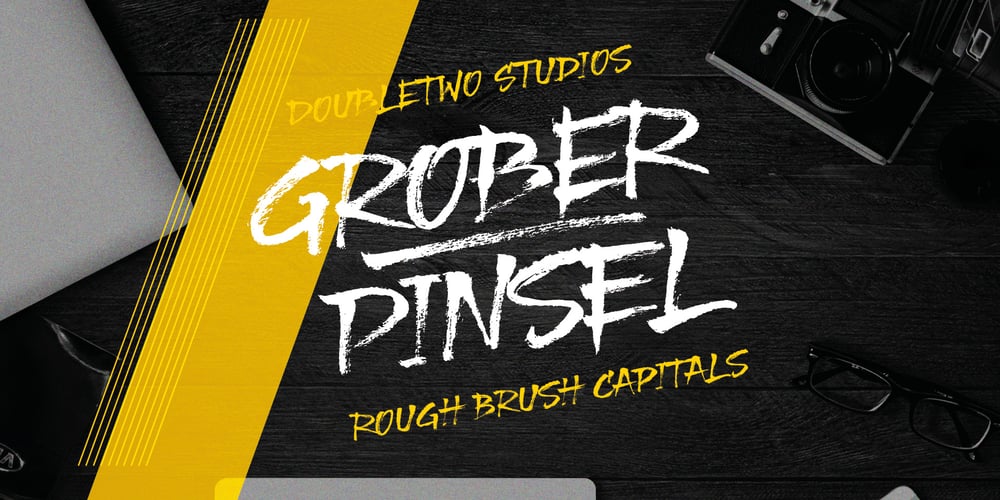
XXII Grober Pinsel Font Family was designed by Lecter Johnson and published by Doubletwo Studios. XXII Grober Pinsel contains 1 styles and family package options. XXII Grober Pinsel – Rough brush capitals The Grober Pinsel is simply what it’s called – a rough brush (“Grober Pinsel“ in german). Handwritten Capitals from A – Z and 0 – 9 in three character sets, upper-, lowercase and an alternates set. In addition comes a set of 10 line strokes and a couple of ligatures and alternates. On the whole this font gives you the possibility to make your design look very unique and handmade. The Pinsel is awesome on shirts, posters and stickers, your stylish fashion blog or cookbook, and everything that needs a bold lettered message. It loves big headlines and gives its best in dynamic logos and also he speaks a well central european. Also see: Behance-Project.